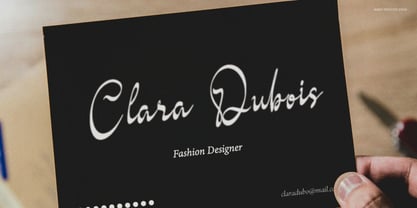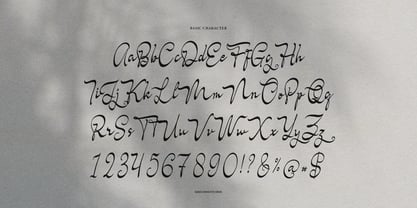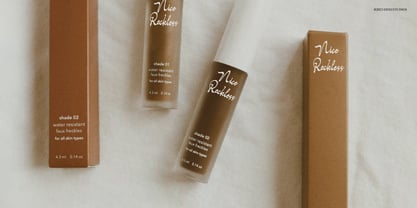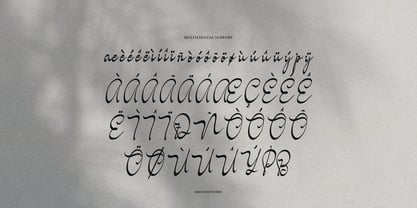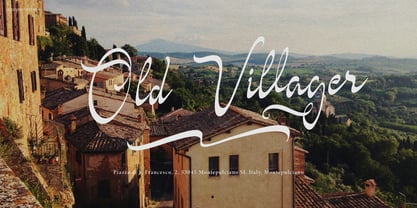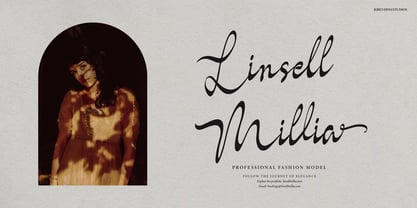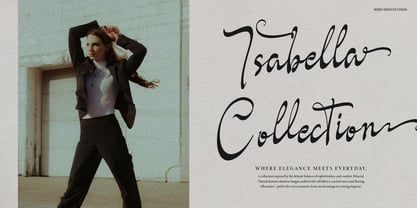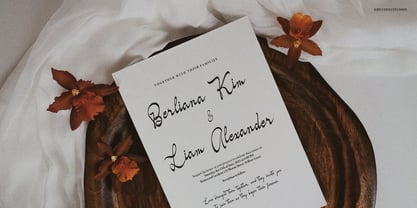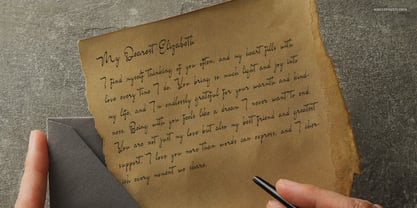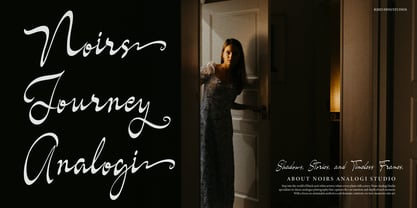
Feriska Monathy
by Denustudio
The Feriska Monathy Font Family was designed by Dede Nugraha and published by Denustudio. Feriska Monathy contains 2 styles and family package options. More about this family
Feriska Monathy | Casual Script Font, from Denustudios, suitable for any projects such as: logos, branding projects, homeware designs, product packaging, mugs, quotes, posters, shopping bags, t-shirts, book covers, name card, invitation cards, greeting cards, label, photography, watermark, special events, and all your other lovely projects that need a Casual Script Font taste.
• Regular and Italic
• Standard glyphs
• Alternate and Ligature
• Fonts include multilingual support